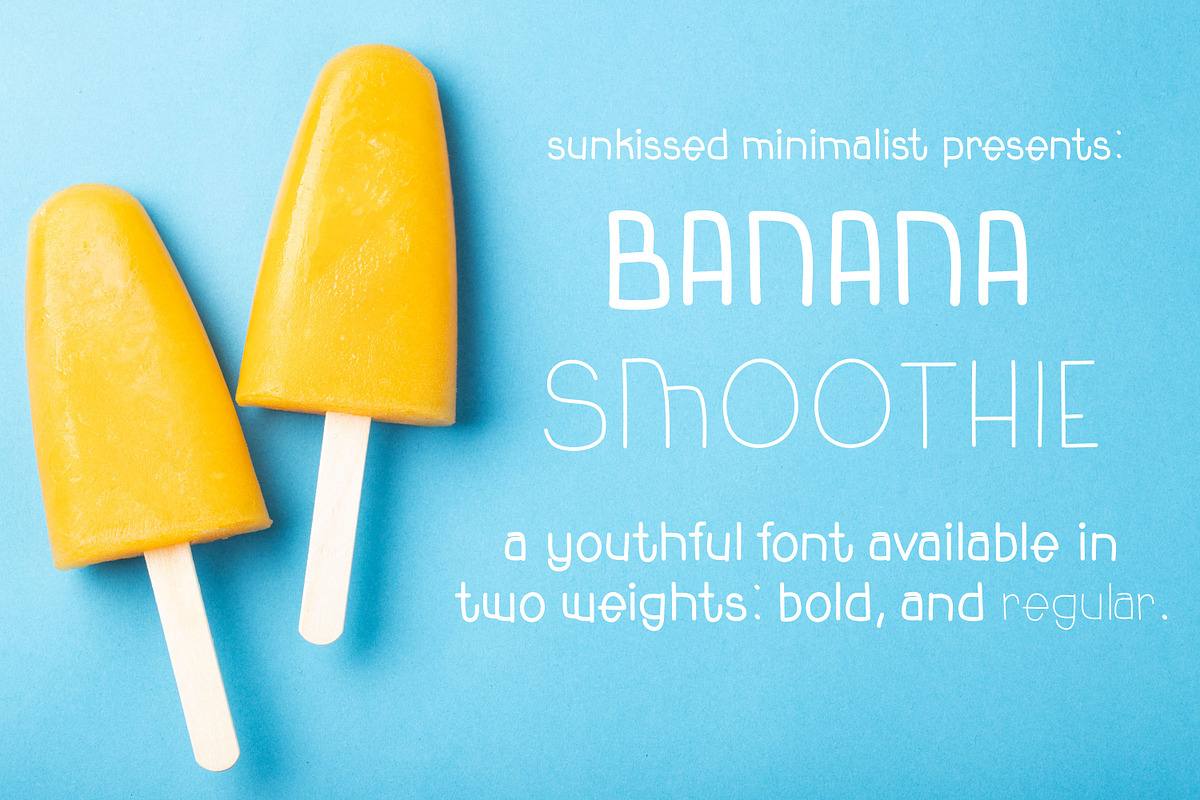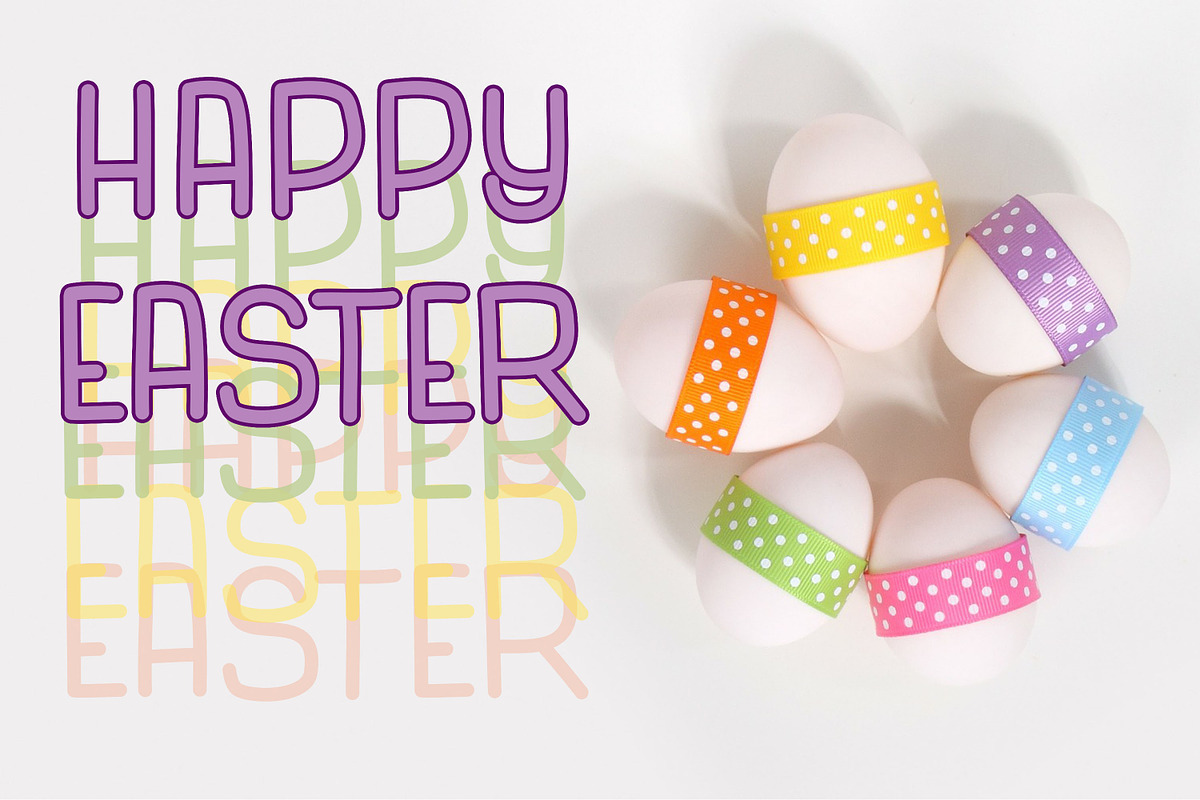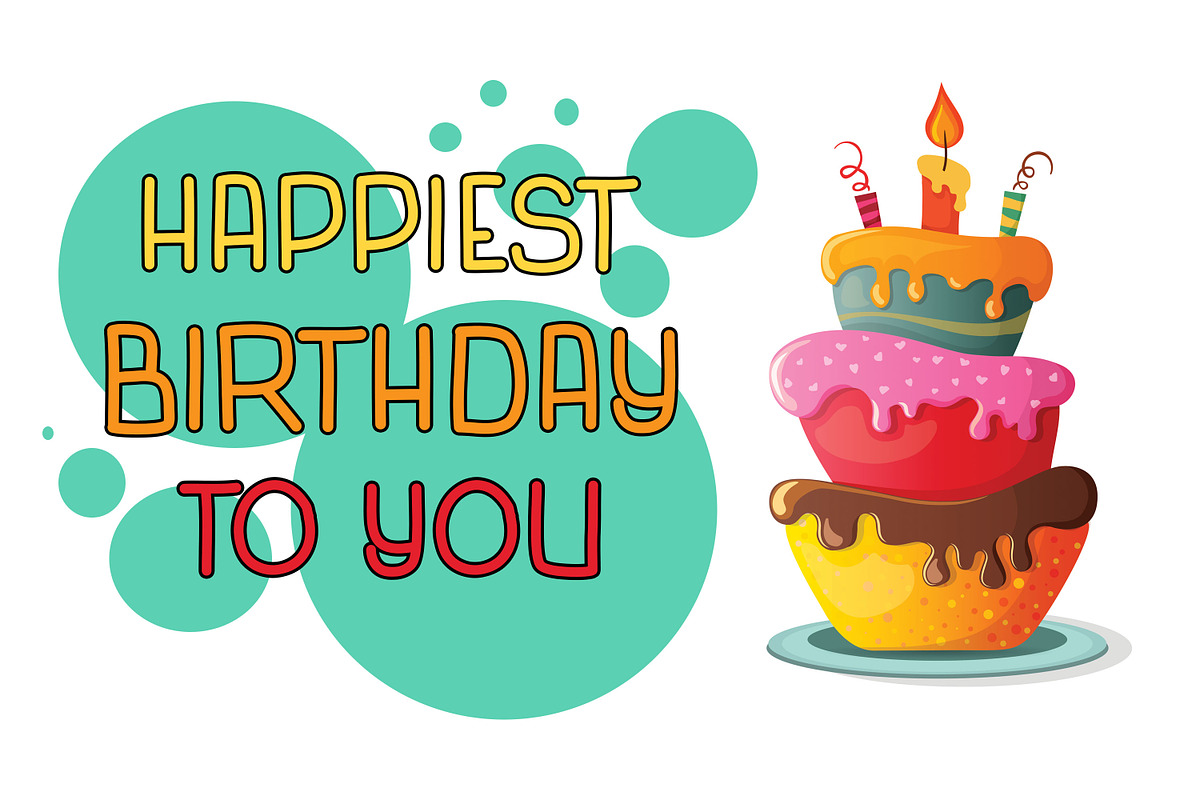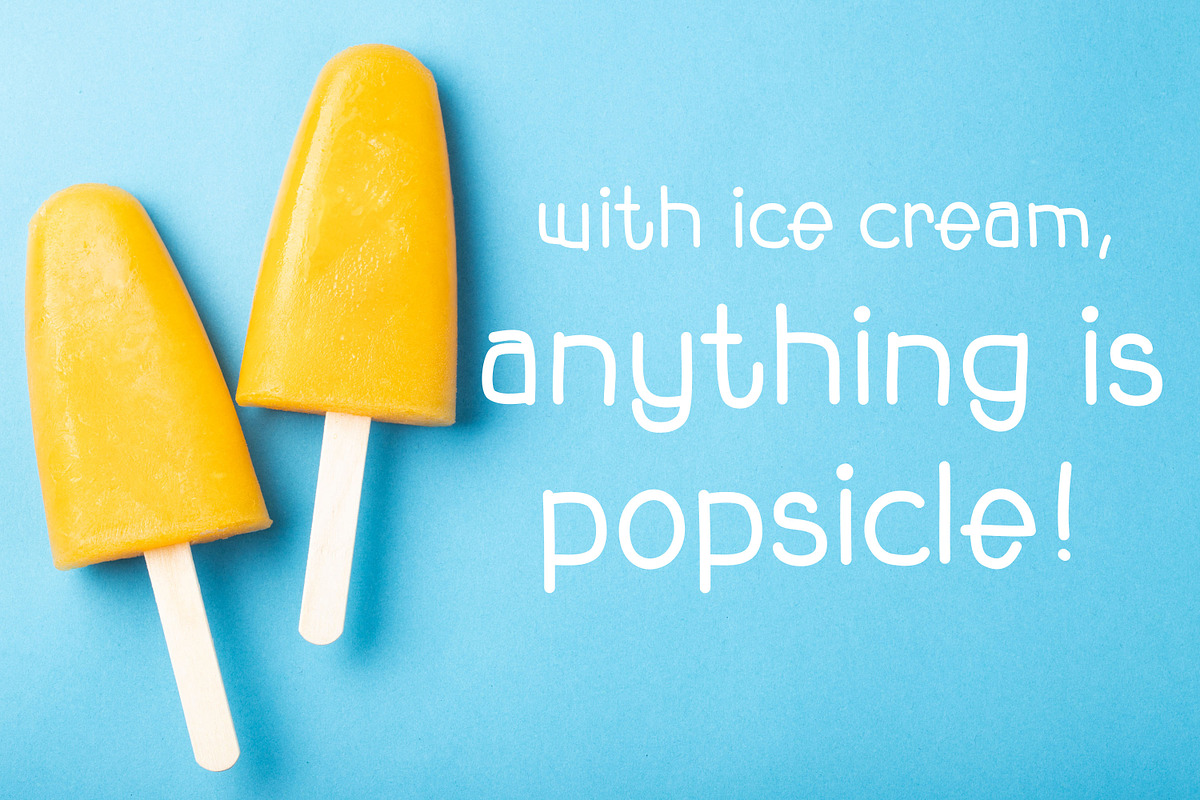
Banana Smoothie
Banana Smoothie is a playful, funky handwritten font that embodies everything fun about being a kid. This font is perfect for: -greeting cards -invitations -posters -t-shirt designs